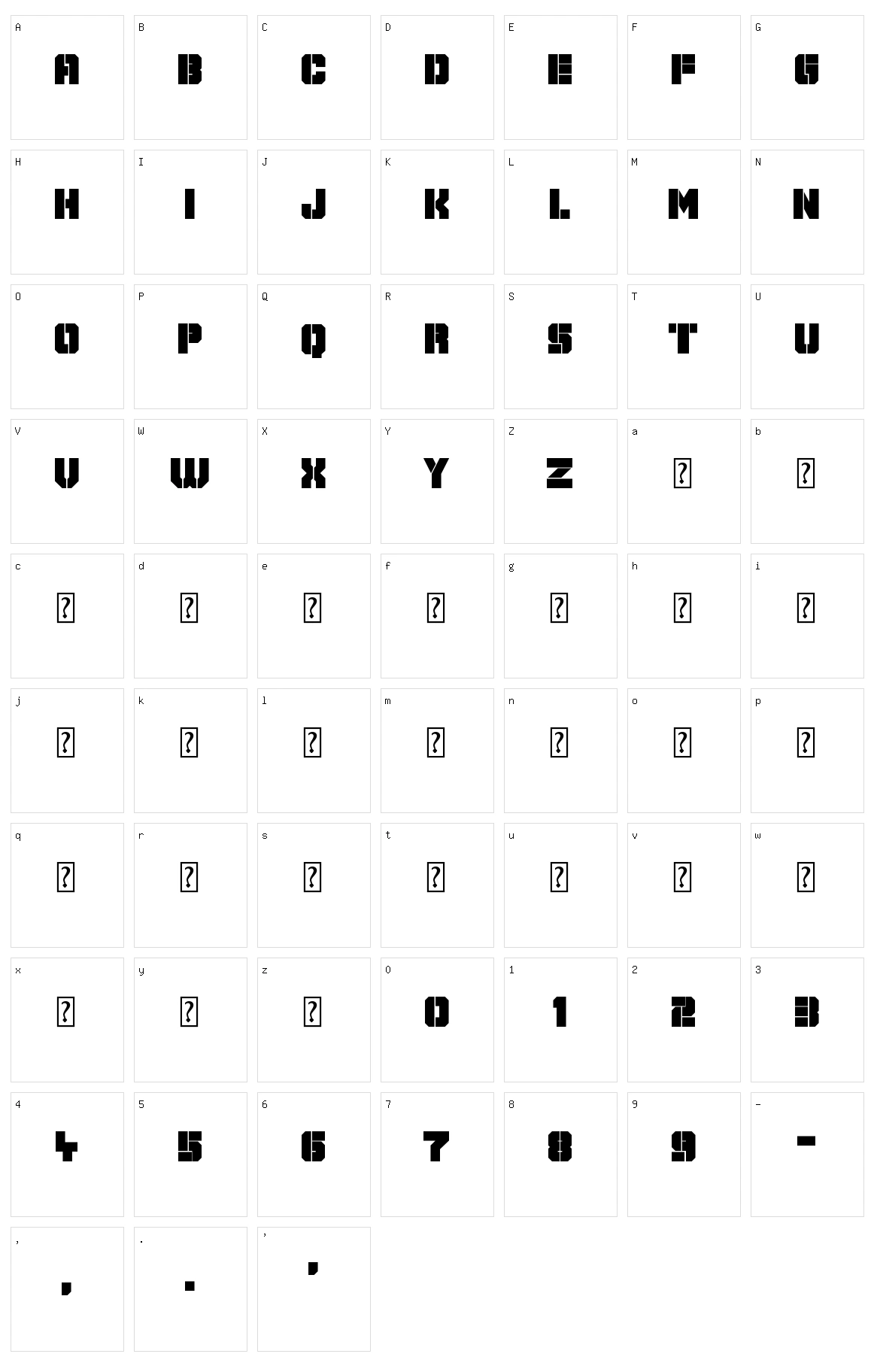
The free font Galaxy Corps is carefully designed by imagex, showcasing a thoughtful balance of creativity and usability and falls under the Stencil font style. When you download the ZIP file, it contains only 2.32 KB of font files, making it lightweight and quick to download. Please review the license details below to understand permitted usage and distribution rights. If license information is not available, we recommend using this font for personal projects only or contacting the author directly for commercial usage permissions.